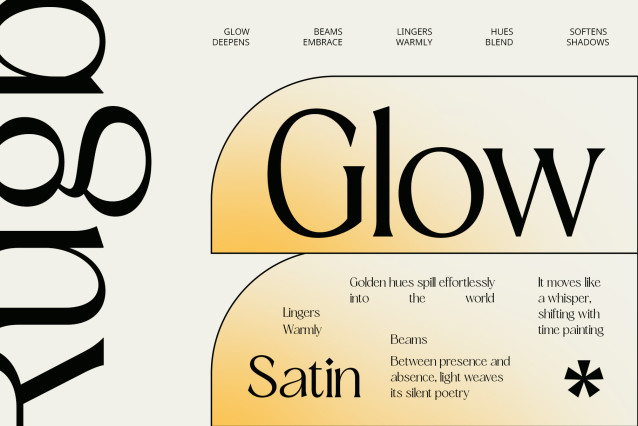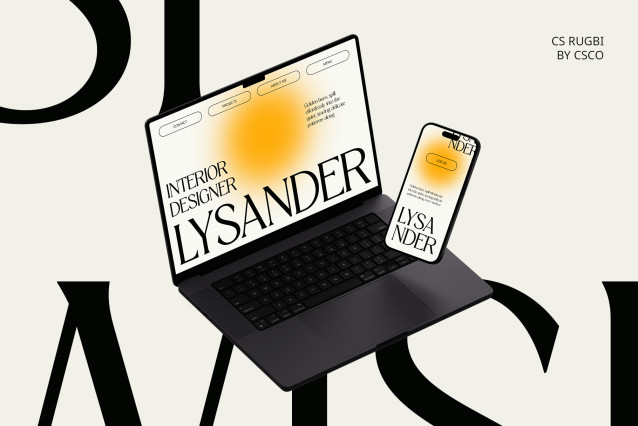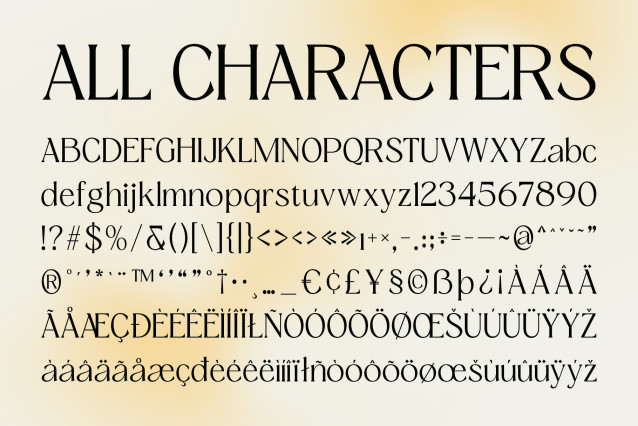
CS Rugbi Font
CS Rugbi Font is a modern serif font that blends clean, minimalist structure with subtle classic touches. Its refined letterforms bring sophistication and clarity, making it a versatile typeface for elegant and professional designs.